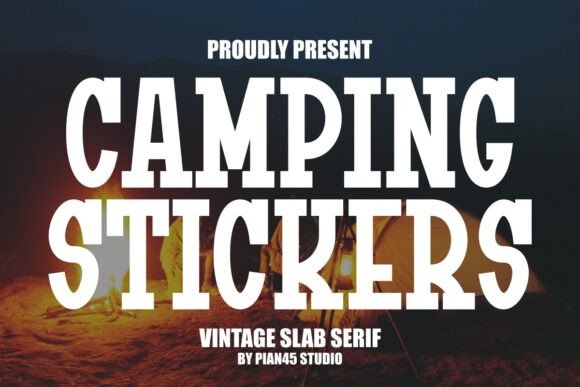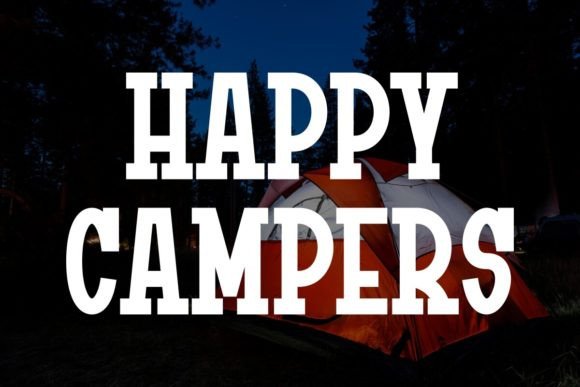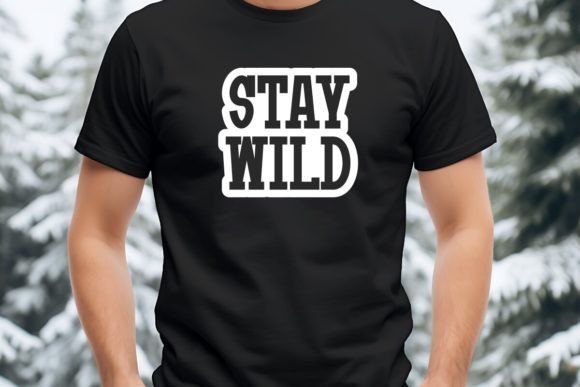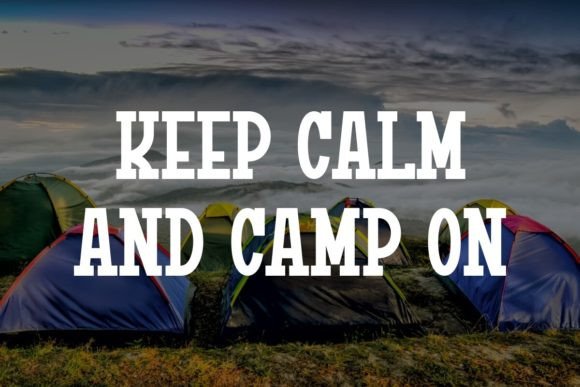
Camping Stickers Font
About the Camping Stickers Font
Explore the possibilities with Camping Stickers Font, a font that offers both beauty and functionality. Camping Stickers is a modern condensed and vintage slab serif font. This font combines modern aesthetics wit a sleek , condensed look, making it a must-have for your design toolkit. Perfect for quotes, posters, backgrounds, sports apparel, t-shirts, mugs, tote bags and pillows.
Camping Stickers’ bold, slightly retro personality makes it ideal for headlines, logos, and short, impactful text on packaging or posters. Its condensed nature ensures readability even in smaller sizes, making it suitable for apparel graphics and merchandise. However, avoid using it for lengthy body copy or UI elements; its condensed design can strain readability in extended text blocks.
This font pairs well with clean sans-serif fonts like Montserrat or Open Sans for a balanced contrast, or with a playful script font such as Pacifico for a more vintage, hand-crafted feel. A geometric sans-serif, like Futura, offers a modern counterpoint while retaining a sense of strength.
The overall effect is energetic and outdoorsy, perfectly suited for brands focused on adventure, nature, or a rugged, retro aesthetic.
Camping Stickers Font Usage Examples
Camping Stickers Font Example